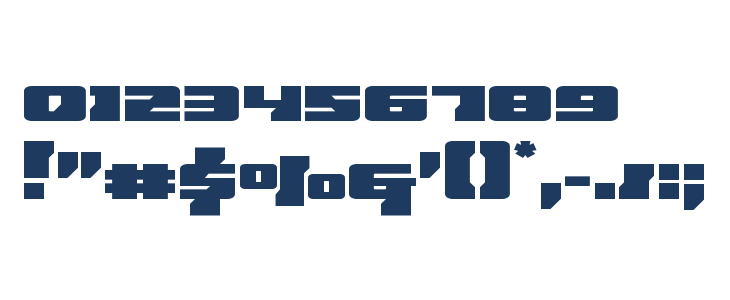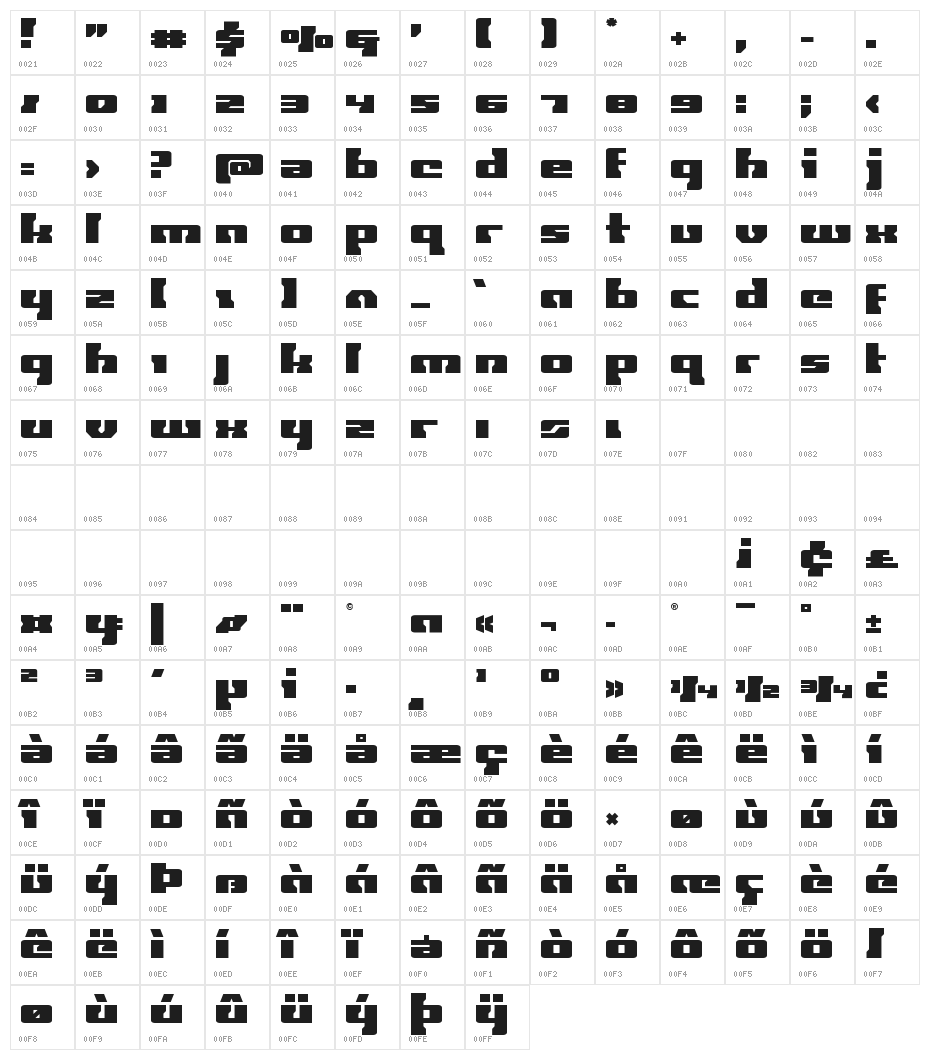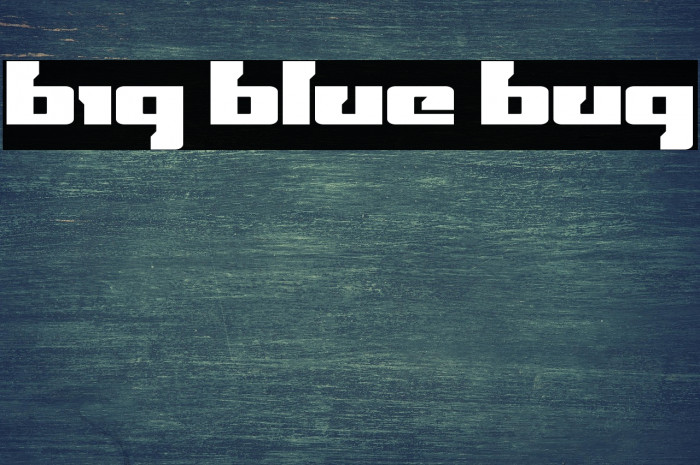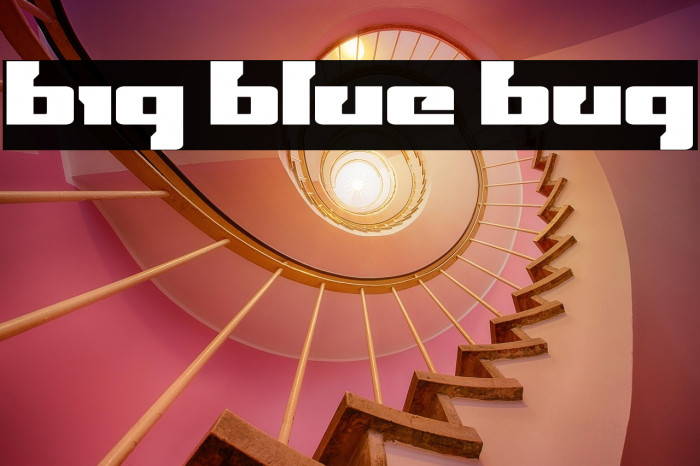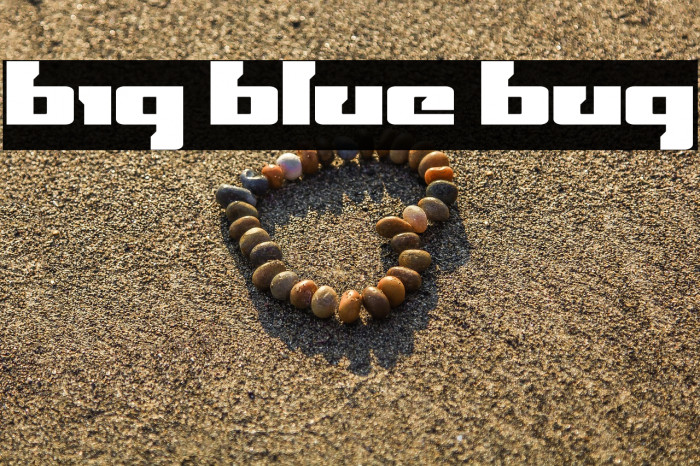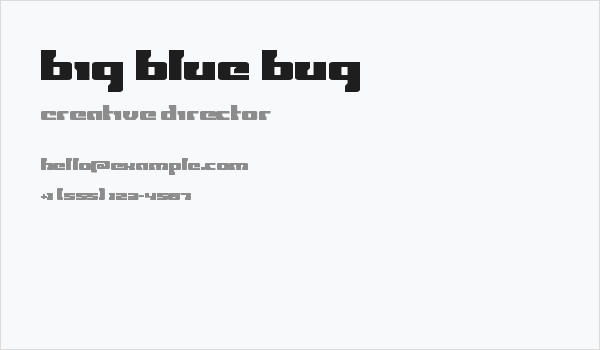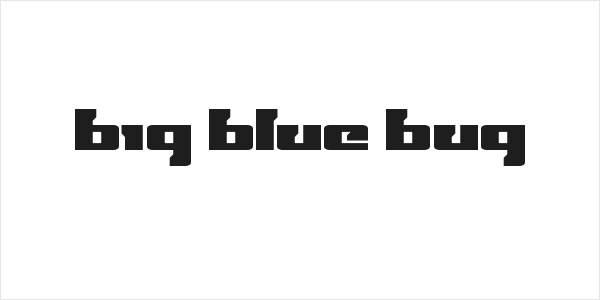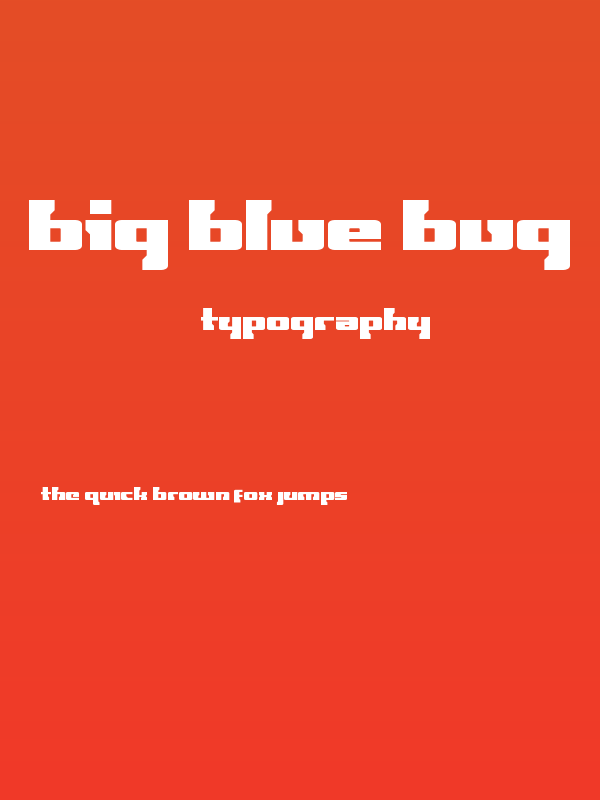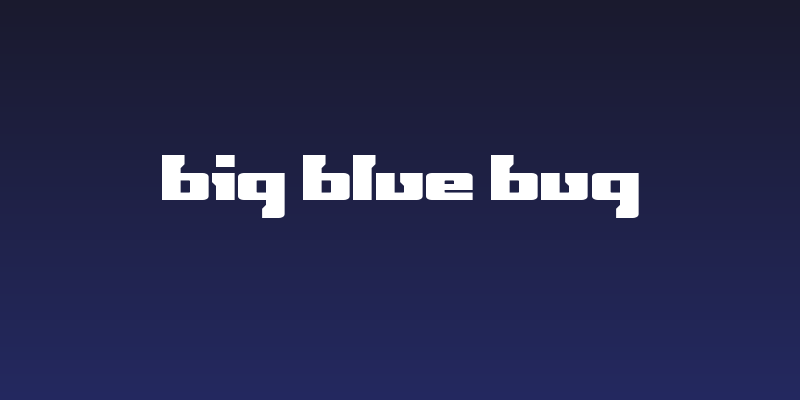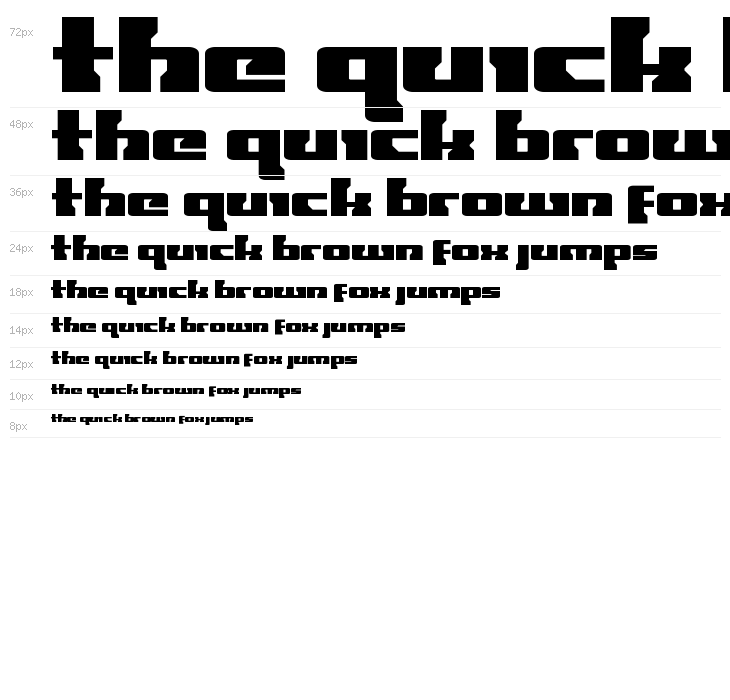
This font features a bold and blocky design with a strong geometric structure. The characters are uniformly thick, creating a powerful and impactful appearance. The edges are sharp and angular, giving it a modern and industrial feel. The uppercase and lowercase letters maintain a consistent style, with the lowercase mirroring the uppercase in form and weight. Numbers and special characters follow the same design principles, ensuring a cohesive look across all glyphs. This font is highly legible at various sizes, making it versatile for different design applications.
| Proposed Projects | Ideal for branding, posters, headlines, and any project requiring a strong visual impact. |